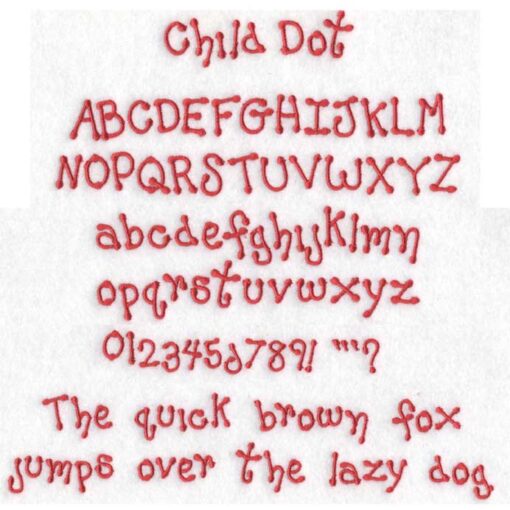
Resizable fun, casual, hand written staggered machine embroidery font. Includes uppercase, lowercase, numbers and available punctuation.This is an object-based BX keyboard alphabet file and requires Embrilliance Essentials.